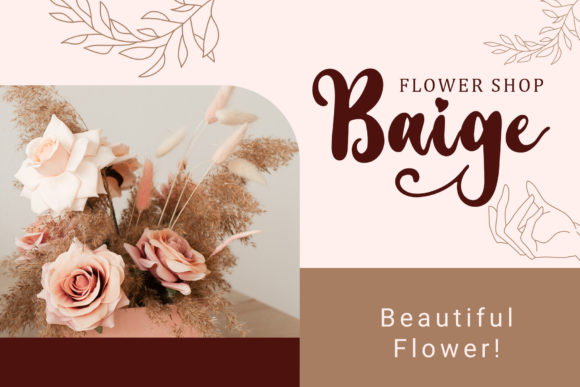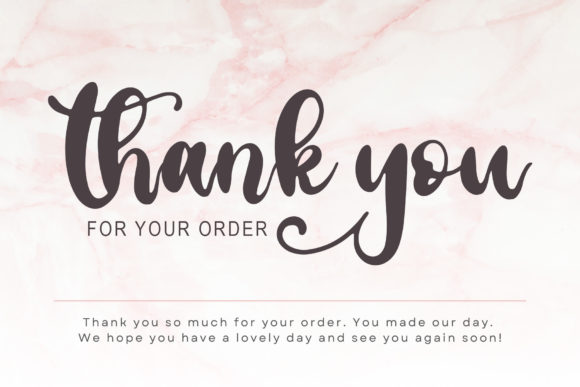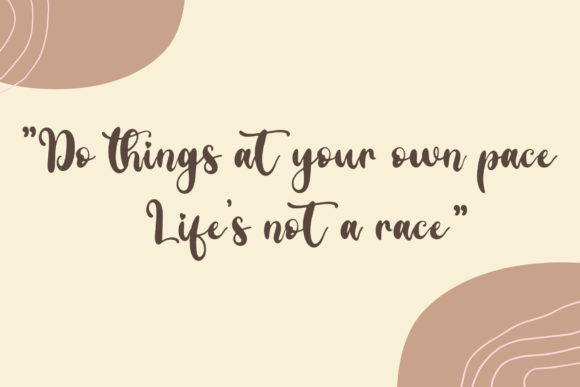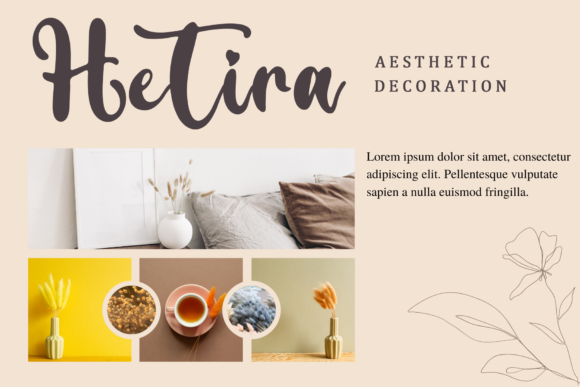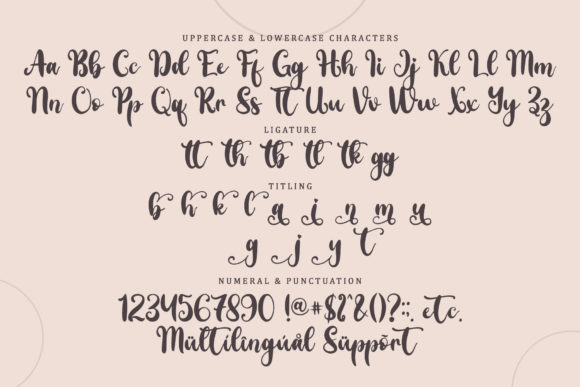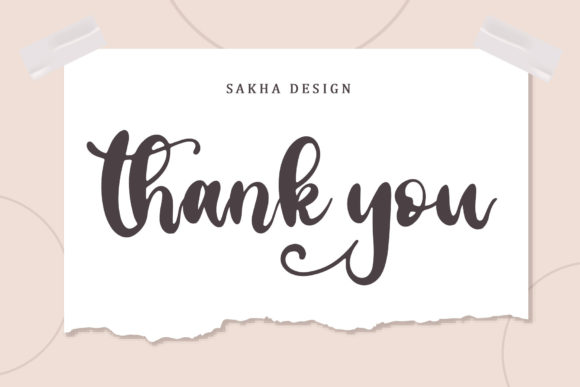
Introducing Hattie Font: A Modern Calligraphy Marvel for Designers and Crafters
In the world of typography, few fonts manage to capture the essence of modern elegance and charm as effectively as the Hattie font. This stunning modern calligraphy font has been making waves among designers, crafters, and typography enthusiasts alike, and for good reason. Hattie is not just any font; it’s a beautifully crafted typeface that brings a touch of sophistication and delicacy to any project it’s a part of.
The Distinctive Features of Hattie Font
So, what makes Hattie stand out in a sea of fonts? For starters, its classification as a modern calligraphy font places it in a league of its own. Hattie features trendy and delicate characters that seem to dance on the page, bringing a level of elegance and refinement to any text it’s applied to. Whether you’re working on a branding project, crafting beautiful wedding invitations, or simply experimenting with typography for your next art piece, Hattie offers the perfect blend of contemporary flair and timeless charm.
PUA Encoding: Unlocking Creative Potential
Another significant advantage of the Hattie font is its PUA (Private Use Area) encoding. For those who may not be familiar, PUA encoding allows users to access a wide range of glyphs and ligatures easily. This means that with Hattie, you’re not just getting a standard set of characters; you’re unlocking a treasure trove of creative possibilities. The PUA encoding ensures that you can effortlessly incorporate swashes, alternate characters, and ligatures into your designs, taking your typography to new heights of creativity and expressiveness.
Applications of Hattie Font
The versatility of Hattie font is one of its most appealing qualities. Designers can use it to create stunning brand identities that stand out in a crowded marketplace. Crafters, on the other hand, can incorporate Hattie into their handmade projects, such as custom stationery, journals, and scrapbooking pages, adding a personal touch that’s both stylish and sophisticated.
Why Designers and Crafters Love Hattie
Designers appreciate Hattie for its ability to add a touch of elegance and modernity to their projects. Its unique characters and ligatures provide endless opportunities for creative experimentation, making it a valuable addition to any designer’s font library. For crafters, Hattie offers a way to elevate their handmade projects, turning simple items into beautiful keepsakes. The ease of use, thanks to PUA encoding, ensures that both professionals and hobbyists can make the most of this exquisite font without a steep learning curve.
Tips for Getting the Most Out of Hattie Font
To truly harness the creative potential of Hattie, here are a few tips:
- Experiment with Ligatures: Don’t be afraid to play around with the various ligatures and glyphs that Hattie has to offer. They can add a unique touch to your designs.
- Mix and Match: Combine Hattie with other fonts to create interesting contrasts and hierarchies in your typography.
Hattie font is more than just a modern calligraphy font; it’s a tool for creativity and self-expression. Its delicate yet trendy characters, coupled with the ease of use provided by PUA encoding, make it an invaluable resource for designers and crafters alike. Whether you’re looking to elevate your professional projects or add a touch of elegance to your personal crafting endeavors, Hattie is sure to exceed your expectations. Embrace the beauty and versatility of Hattie font, and watch your designs and crafts transform into stunning works of art.